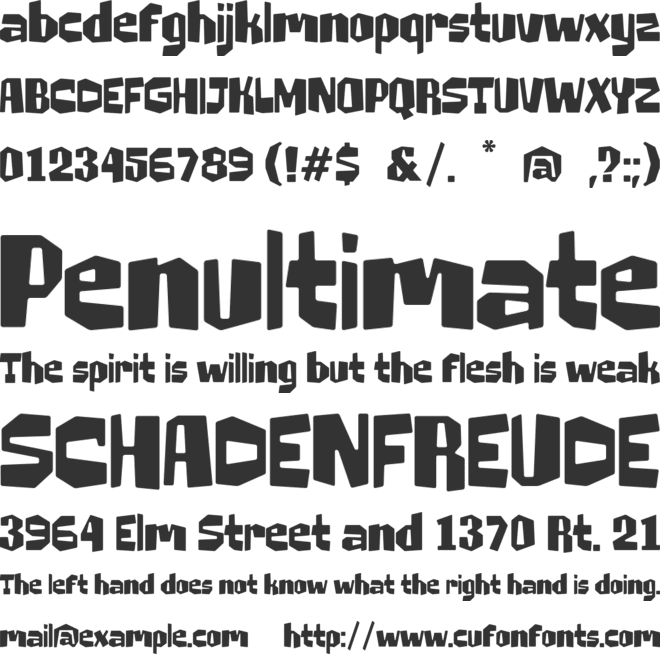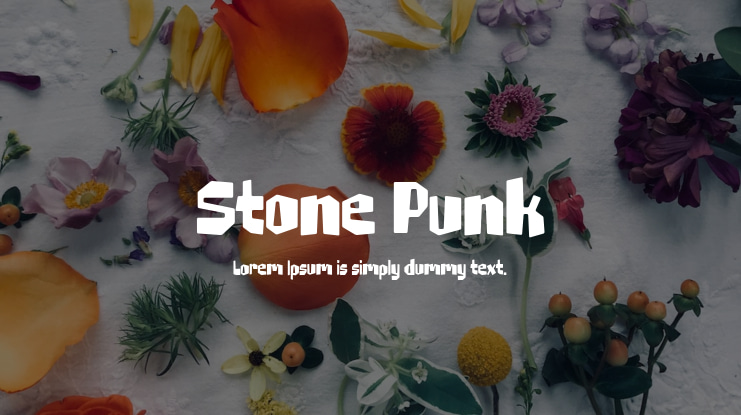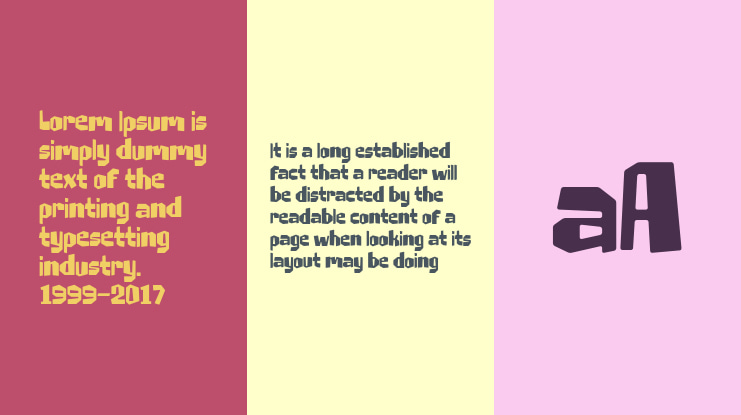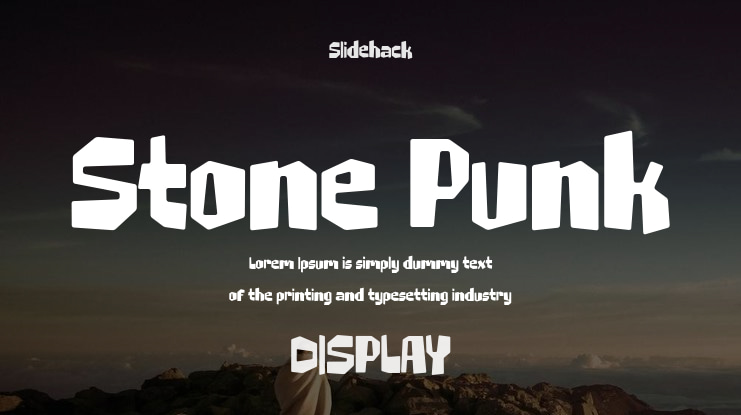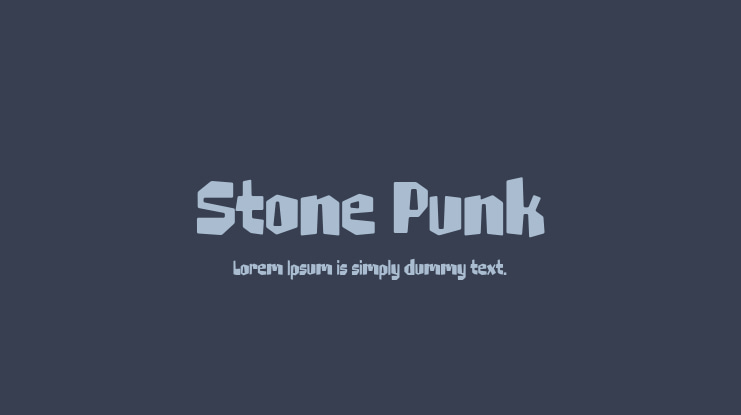
Stone Punk Font
Introducing Stone Punk, a font that adds a playful twist to your design projects. Featuring bold, blocky letters, this typeface brings a retro-inspired touch that is perfect for gaming enthusiasts and creatives looking to infuse some fun into their work. Stone Punk is more than just a font; it's a powerful tool that effortlessly commands attention with its robust, attention-grabbing characters.
Whether you're working on a user interface for a video game, designing a poster for a gaming event, or simply looking for a creative edge, Stone Punk has got you covered. Its unique style adds a hint of nostalgia while keeping your designs fresh and vibrant. Prepare to take your creative projects to the next level with Stone Punk – the font that transforms every design into an exciting gaming adventure. Don't wait, seize the opportunity now and let the fun begin!